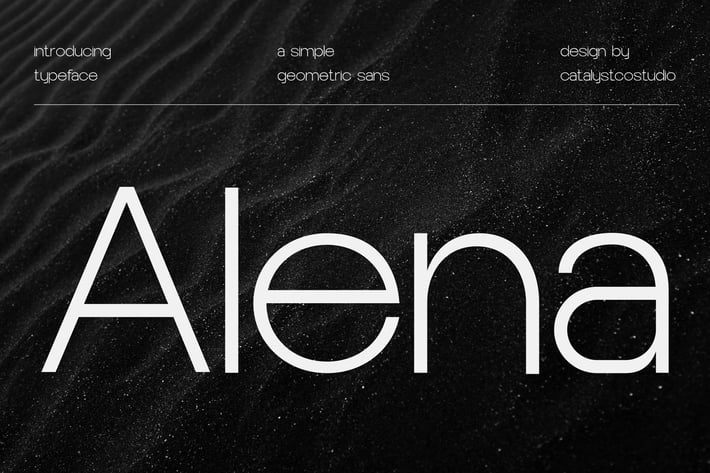
Alena Sans Serif Font
Alena Sans Serif Font introduces itself as a simple geometric sans-serif typeface, distinguished by its incredibly clean lines and a distinctly minimalist aesthetic. The letterforms are constructed with precise geometric shapes, lending an air of understated elegance and modern sophistication. This font is designed to be highly versatile, offering a sleek and unobtrusive presence that allows content to take center stage. Its refined simplicity makes it an excellent choice for projects demanding a crisp, contemporary feel without visual clutter. Alena excels in conveying professionalism and a forward-thinking approach, making it particularly well-suited for tech-focused branding, minimalist design, and clean user interfaces.
Alena Sans Serif Font Suitable for Corporate Branding, UI/UX Design, Web Design, Editorial Layouts, Tech Packaging, Professional Presentations, Architectural Portfolios, Luxury Branding, Infographics, Technical Manuals, Fashion Branding, Annual Reports, Digital Ads, Signage Systems, E-commerce, Scientific Publications, Startup Branding, Museum Labels, Resumes, Podcast Art.